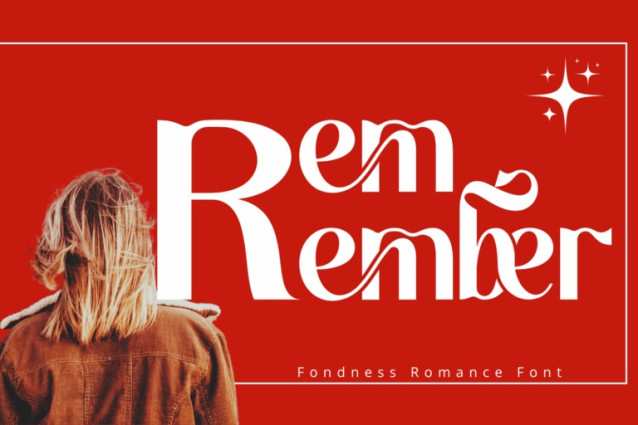
Fondness Romance Font
Fondness Romance Font is a romantic high-contrast display serif font that blends timeless elegance with modern fluidity. Its signature feature lies in the graceful swashes and curving terminals that adorn select characters, adding a touch of warmth and affection to your typography. Each letterform is carefully crafted to evoke emotion—perfect for wedding designs, branding, packaging, and any project that needs a whisper of romance and sophistication. The stylish ligatures and expressive alternates provide endless typographic combinations to personalize your message.
Font Features:
~100 Special Ligatures
Elegant swashes and alternates for selected letters
About 100 ligatures combined with Stylistic Alternates Font: